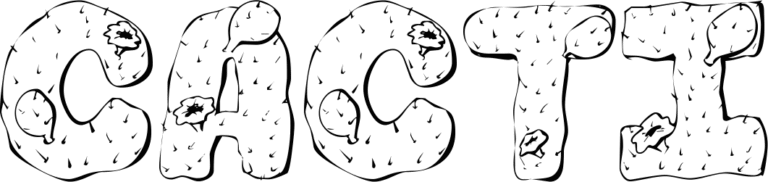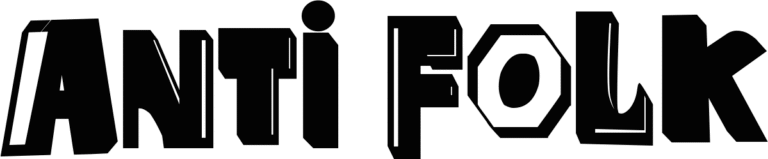
Doodles Of Fun Font
Designed byDes Gomez
Want your typography to look equivalent to human handwriting with a childish feel? Then make it look fun with this Doodles Of Fun, which is cute. It includes only capitalized alphabets, numbers, and some symbols that are all easy to read and can create amazing text for your design.
This handwritten font will be most suitable for places where you need something personal and playful maybe you might consider it for places like books, apps, Facebook, YouTube, movies, and more.